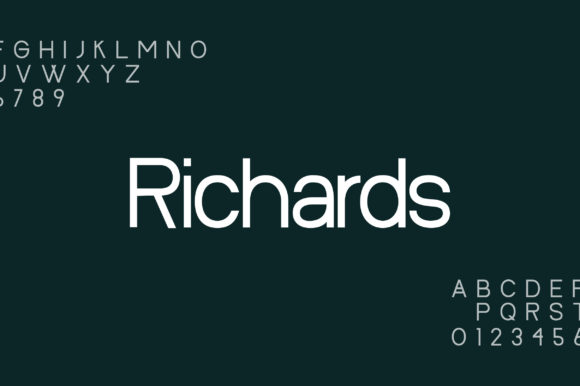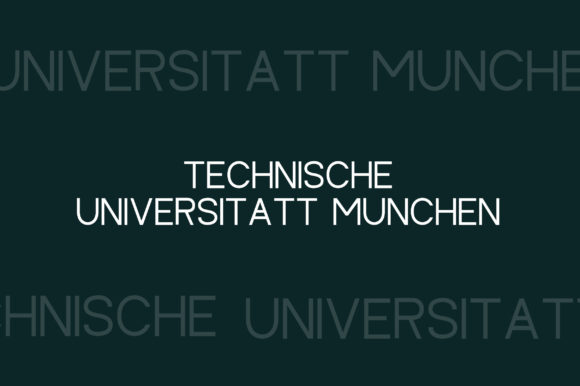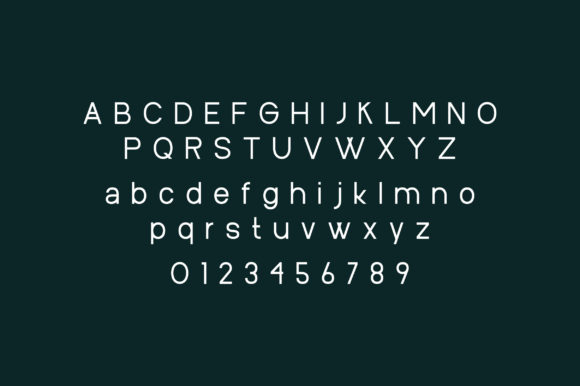
Introduction to Richards Font
Have you ever been in the middle of a creative project, staring at a blank canvas or screen, and suddenly, the perfect font pops into your mind? For designers, this moment is pure magic. It’s the moment when all the pieces fall into place, and the design starts to take shape. For me, that moment happened when I stumbled upon the Richards Font. Its clean and simple sans serif design has been a game-changer in my creative process.
With its neat, thin, and smooth vibe, the Richards Font is a versatile design resource that can elevate any project. Whether you’re working on a high-quality logo, a website with a transparent background, or a print material, this font is sure to impress. And the best part? It’s free to download, making it an accessible resource for designers of all levels.
Key Features of Richards Font
- High-quality, professional design ideal for creative projects
- Transparent background, making it easy to use with any image or design
- Includes a wide range of glyphs and characters for various languages
- Designed with a modern and clean aesthetic, perfect for corporate and branding projects
- Resolution: 300 DPI, ensuring crisp and clear text in print and digital applications
Honest Review: Richards Font
As a designer, I’m always on the lookout for high-quality fonts to enhance my creative projects. Recently, I stumbled upon the Richards Font, and I’m excited to share my honest review with you.
- High-quality design: The Richards Font boasts a sleek and modern design that’s perfect for contemporary projects.
- Transparent background: The font’s transparent background makes it easy to overlay on different images and designs.
- Limited font styles: While the Richards Font is a great addition to any design library, it’s limited to a single font style, which may not be ideal for projects requiring multiple font variations.
- Not ideal for small text: Due to its modern design, the Richards Font may not be the best choice for small text or body copy, as it can be difficult to read.
Overall, I’m impressed with the Richards Font, and I think it’s a great addition to any design library. While it has some limitations, its high-quality design and transparent background make it a valuable resource for creatives working on a wide range of projects.
Richards Font is suitable for various design projects, including logos, business cards, and social media graphics. Its unique style makes it an ideal choice for creative projects that require a touch of sophistication and elegance.
Tips for Getting the Most Out of Richards Font
To get the most out of Richards Font, experiment with different font sizes, colors, and styles. Use a transparent background to create a clean and minimalist look. Consider pairing Richards Font with other high-quality design resources to enhance your creative project.
Alternatives to Richards Font
Open Sans is a popular high-quality sans-serif font ideal for creative projects, particularly those requiring a clean and transparent background. It’s available for free download and is a great design resource for modern websites and applications.
Open Sans is similar to Richards Font in its simplicity and readability but offers a more contemporary feel. It’s perfect for projects where a clean and minimalist aesthetic is desired.
Lato is a beautiful sans-serif font that’s perfect for creative projects requiring a high-quality and modern look. It features a transparent background and is available for free download, making it a great design resource for designers.
Lato is more elegant than Richards Font and is ideal for projects where a sophisticated and refined look is desired.
Montserrat is a geometric sans-serif font that’s perfect for creative projects requiring a high-quality and modern look. It features a transparent background and is available for free download, making it a great design resource for designers.
Montserrat is similar to Richards Font in its geometric feel but offers a more urban and edgy aesthetic. It’s perfect for projects where a bold and modern look is desired.
4. Nunito
Nunito is a high-quality sans-serif font that’s perfect for creative projects requiring a clean and modern look. It features a transparent background and is available for free download, making it a great design resource for designers.
Nunito is more rounded than Richards Font and is ideal for projects where a friendly and approachable look is desired.
Creative Projects with Richards Font
Project 1: Minimalist Quote Board
Create a visually appealing quote board using Richards Font to add a touch of sophistication. The high-quality font is perfect for creating a transparent background design that lets the quote shine.
How to use Richards Font in this project:
- Download the Richards Font and install it on your computer.
- Choose a minimalist background image or color.
- Use the Richards Font to create a bold and eye-catching quote.
- Add a few strategically placed graphics or icons to enhance the quote’s meaning.
- Experiment with different font sizes and colors to create visual interest.
Project 2: Digital Business Card
Create a professional digital business card that showcases your brand’s personality using Richards Font. The free download of this font makes it an ideal design resource for any project.
How to use Richards Font in this project:
- Use Richards Font to create a bold and modern headline.
- Add a clear and concise call-to-action using a sans-serif font.
- Include your contact information and a professional image.
- Add a subtle background texture to give your card some depth.
- Experiment with different color schemes to match your brand’s identity.
Project 3: Hand-Lettered Typography Poster
Create a stunning hand-lettered typography poster using Richards Font to add a touch of elegance. This high-quality font is perfect
Frequently Asked Questions About Richards Font
Q: What is the file format of Richards Font?
The Richards Font is available in OpenType (.OTF) and TrueType (.TTF) formats, making it compatible with a wide range of design software, including Adobe Creative Cloud and other high-end design tools.
Q: Can I use Richards Font for commercial projects?
Yes, the Richards Font is licensed for personal and commercial use, making it a valuable design resource for creative projects. However, please ensure that you have a valid license and follow the terms of use outlined in the font’s license agreement.
Q: Is Richards Font free to download?
Yes, the Richards Font is available for free download, but please note that it is a high-quality font that is suitable for professional use. You can download the font from our website and use it in your design projects, including logos, branding materials, and other creative work.